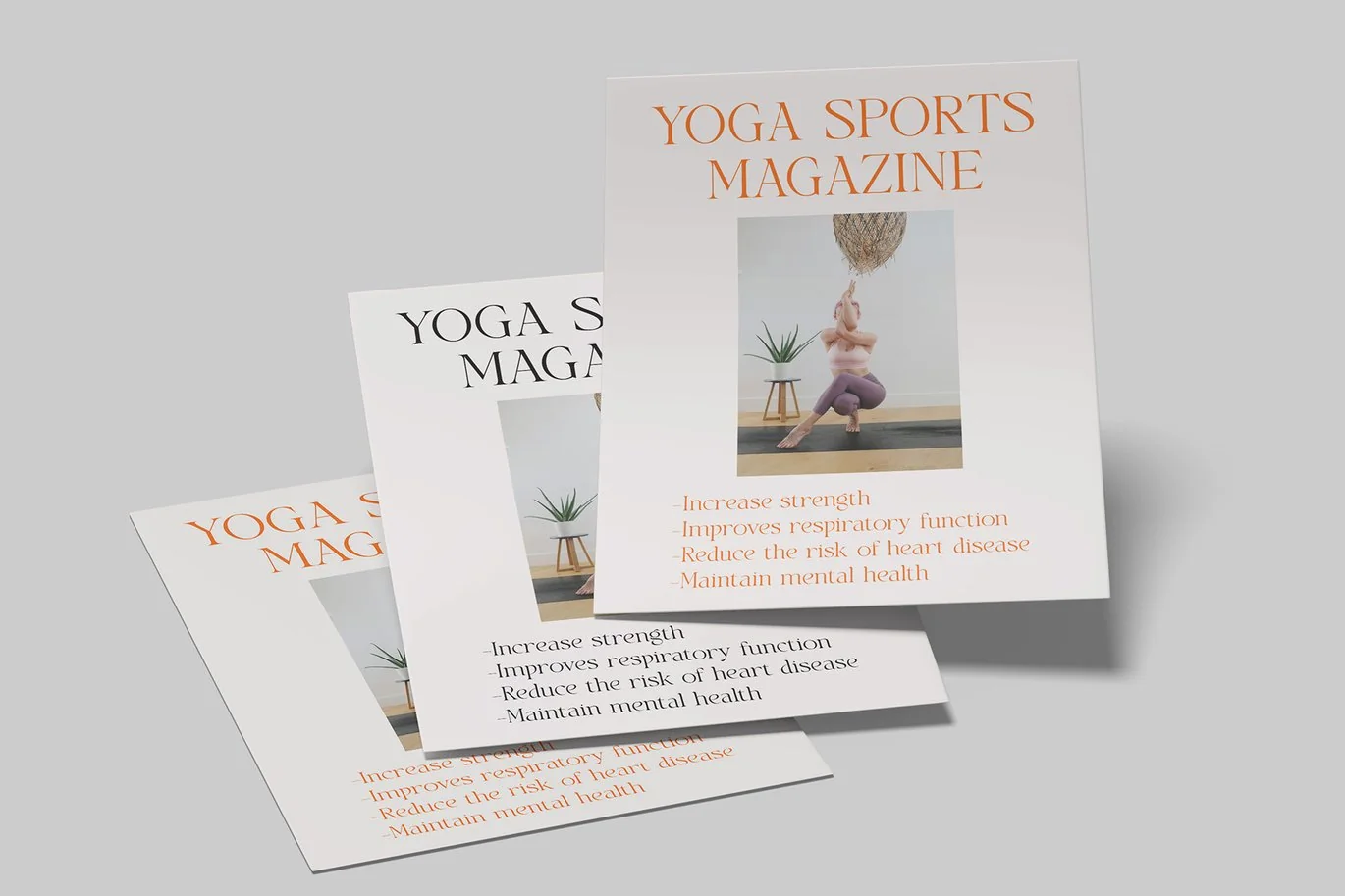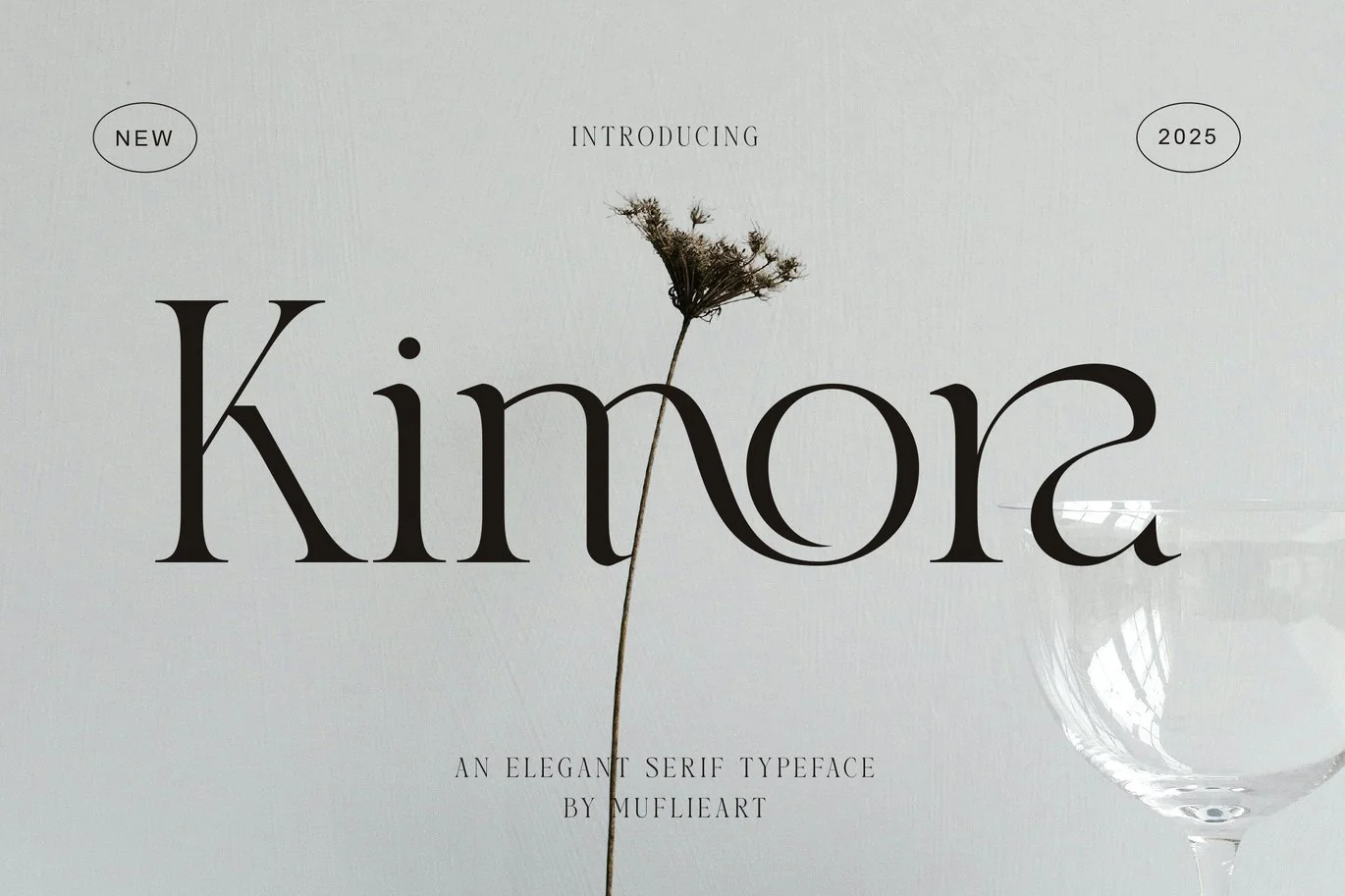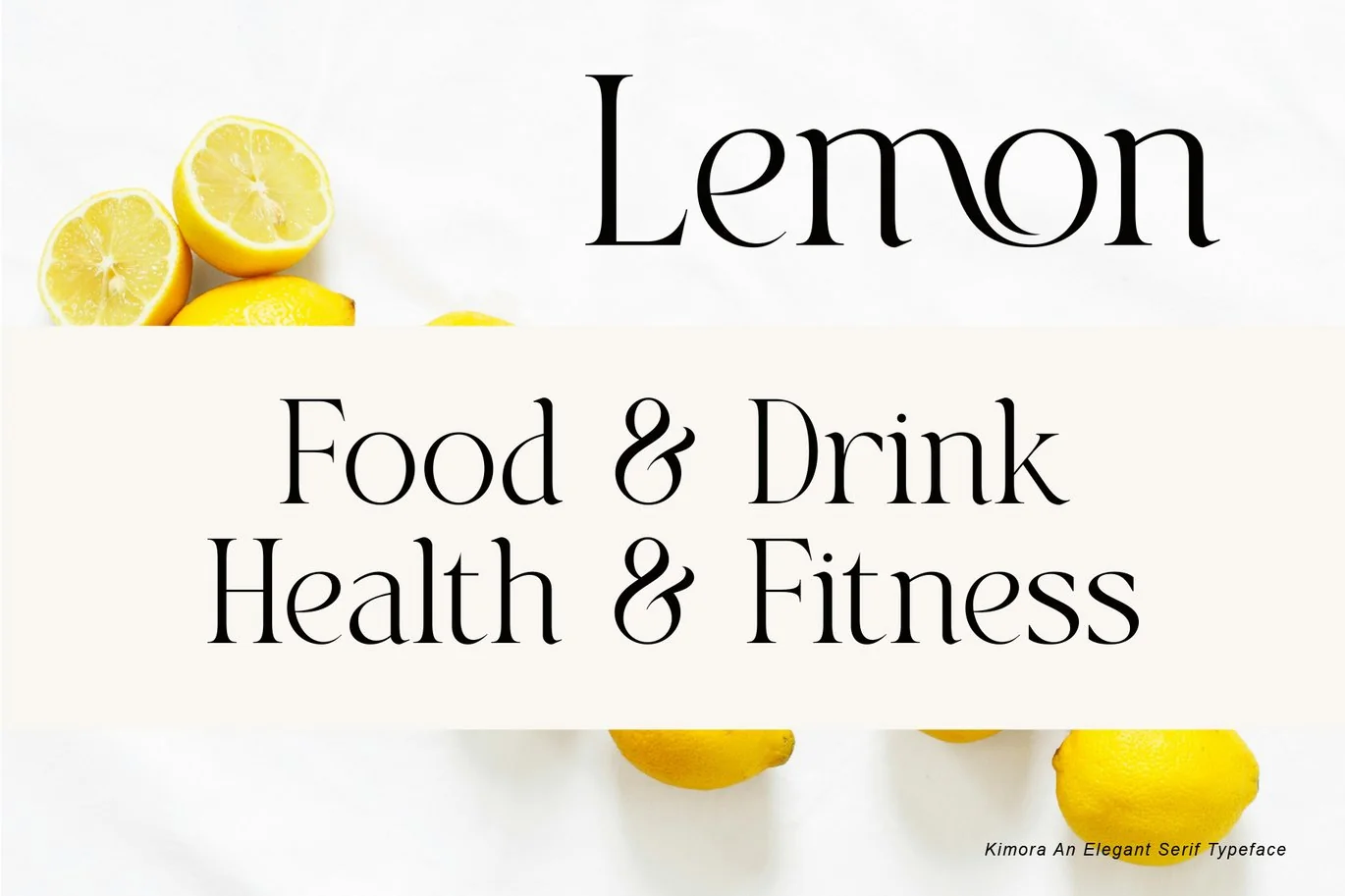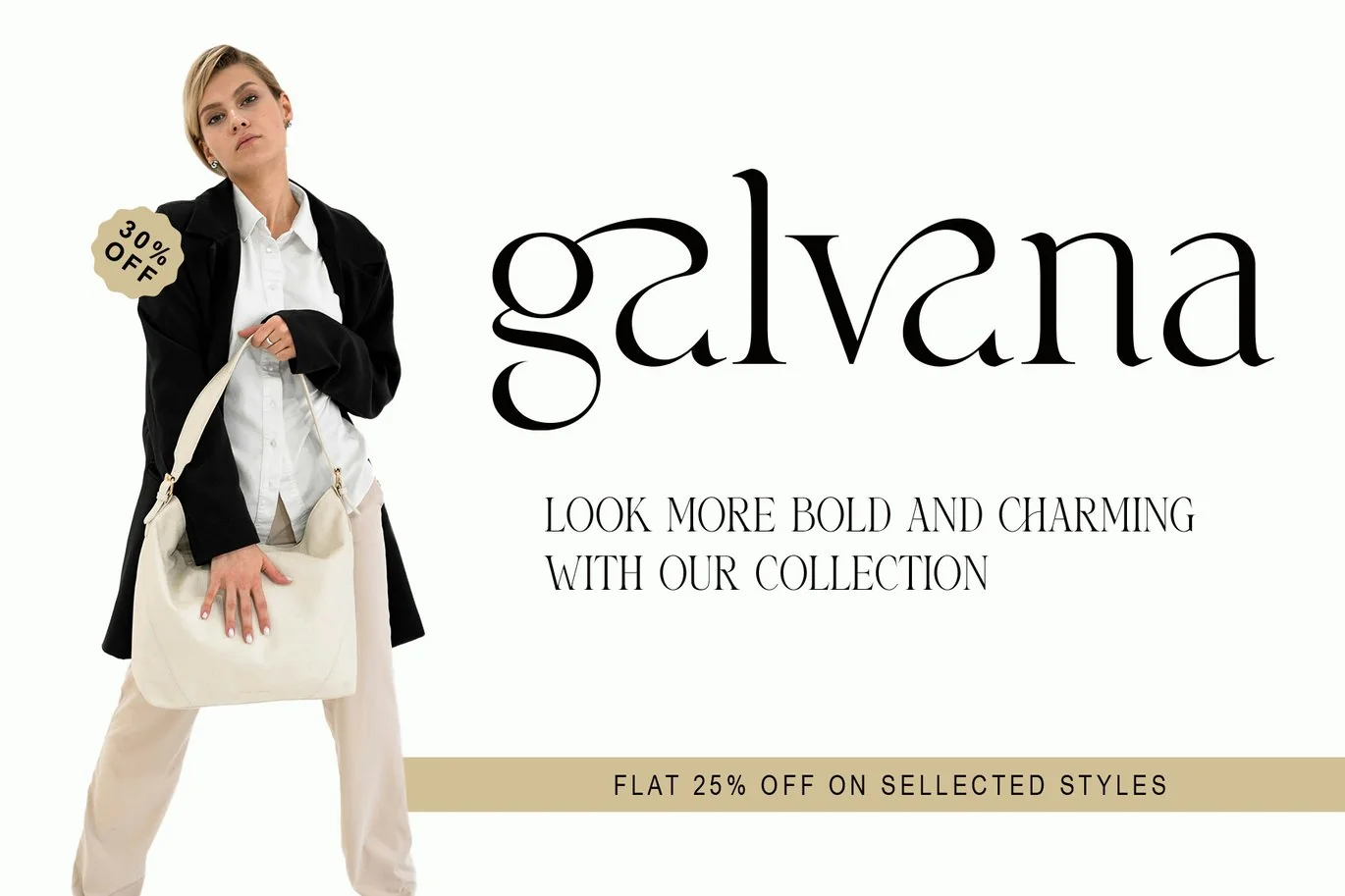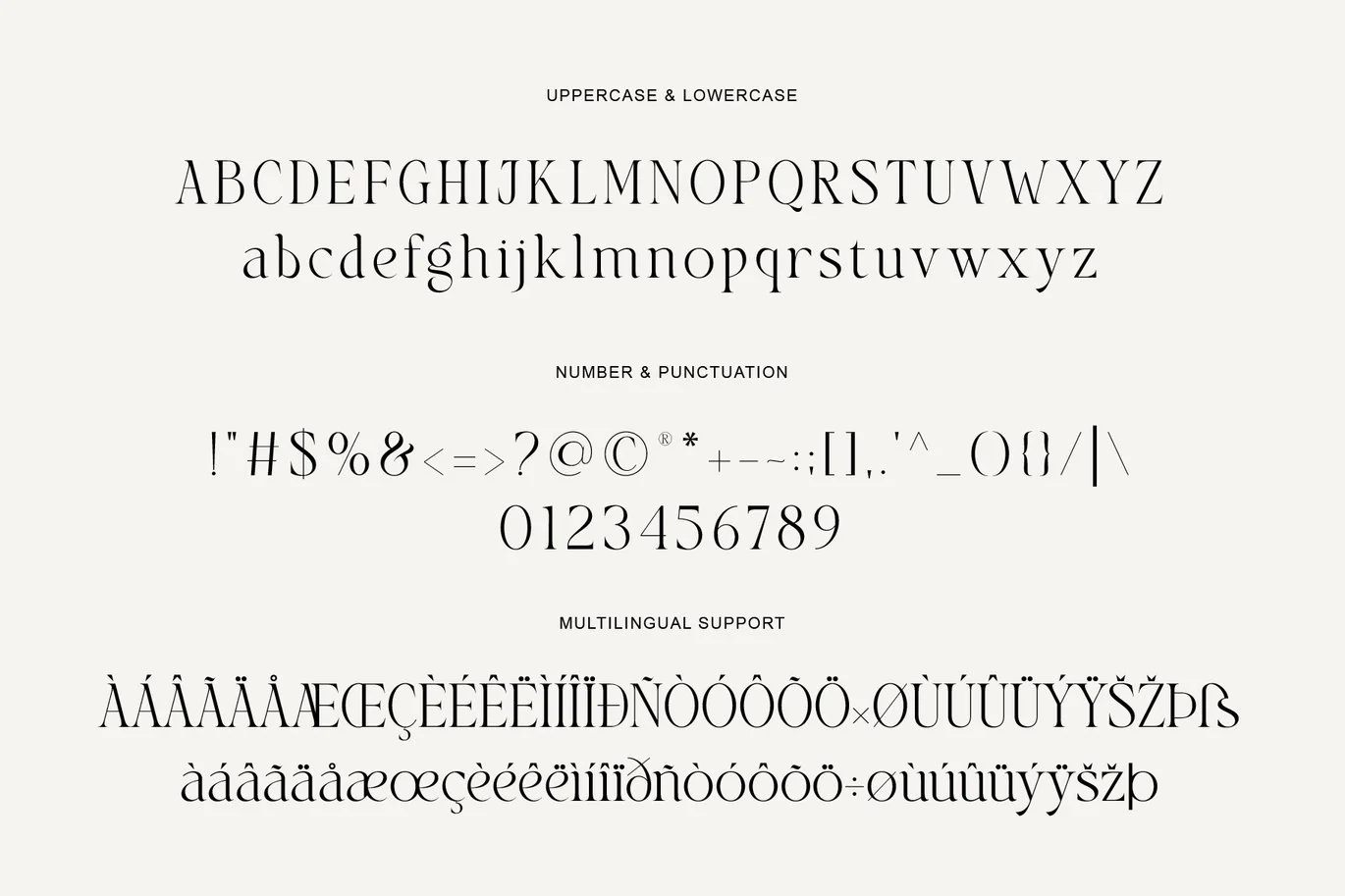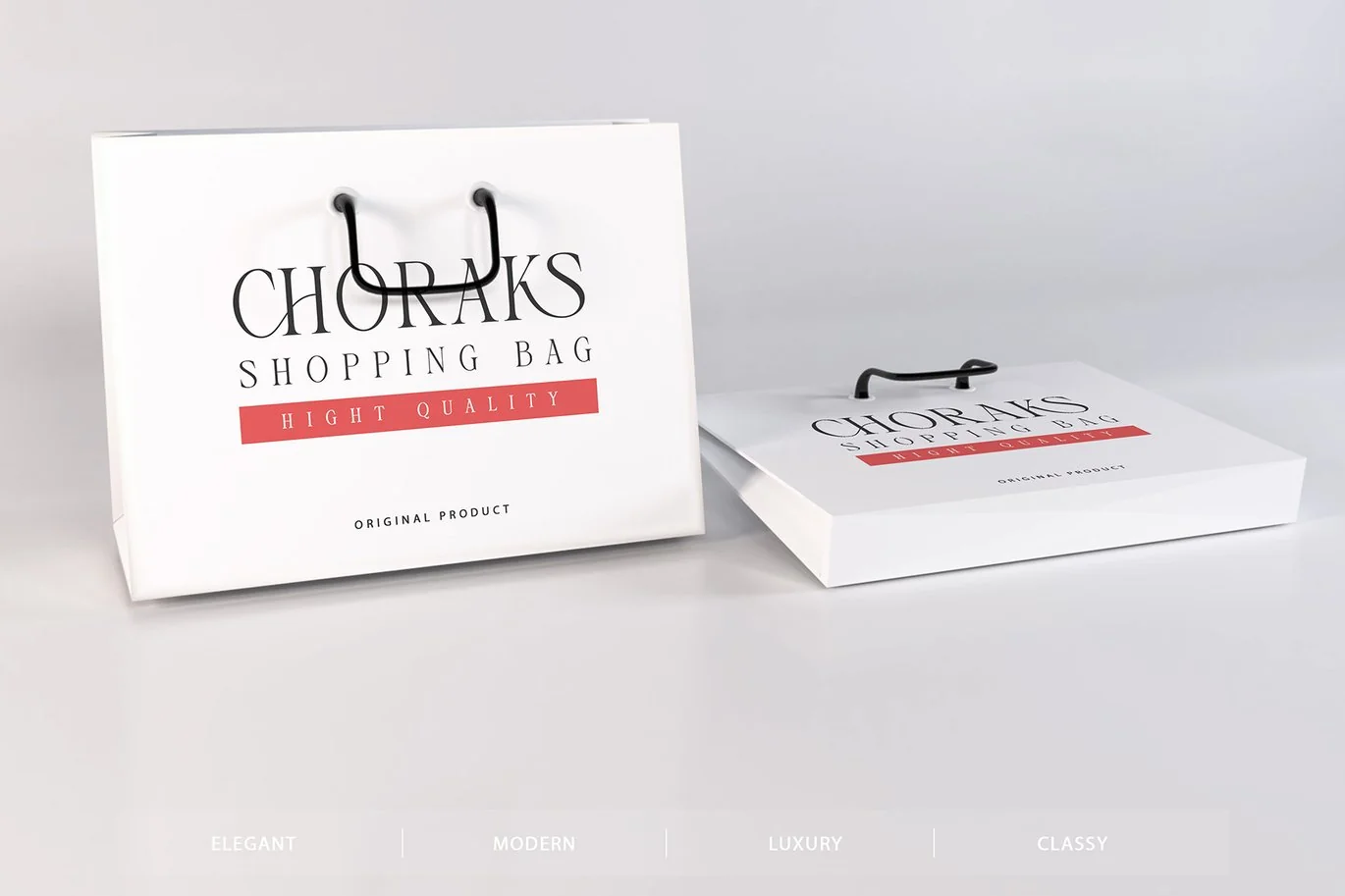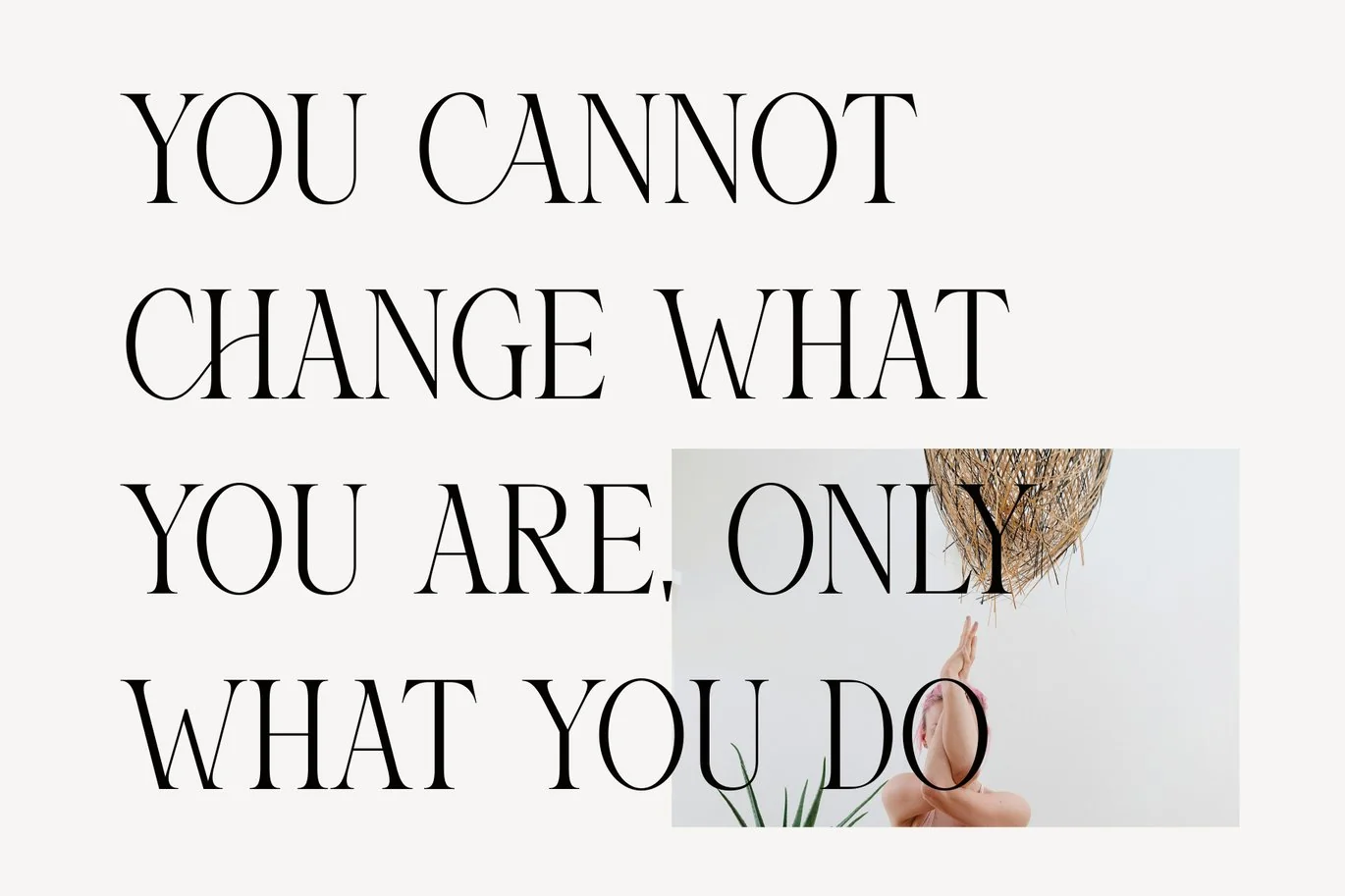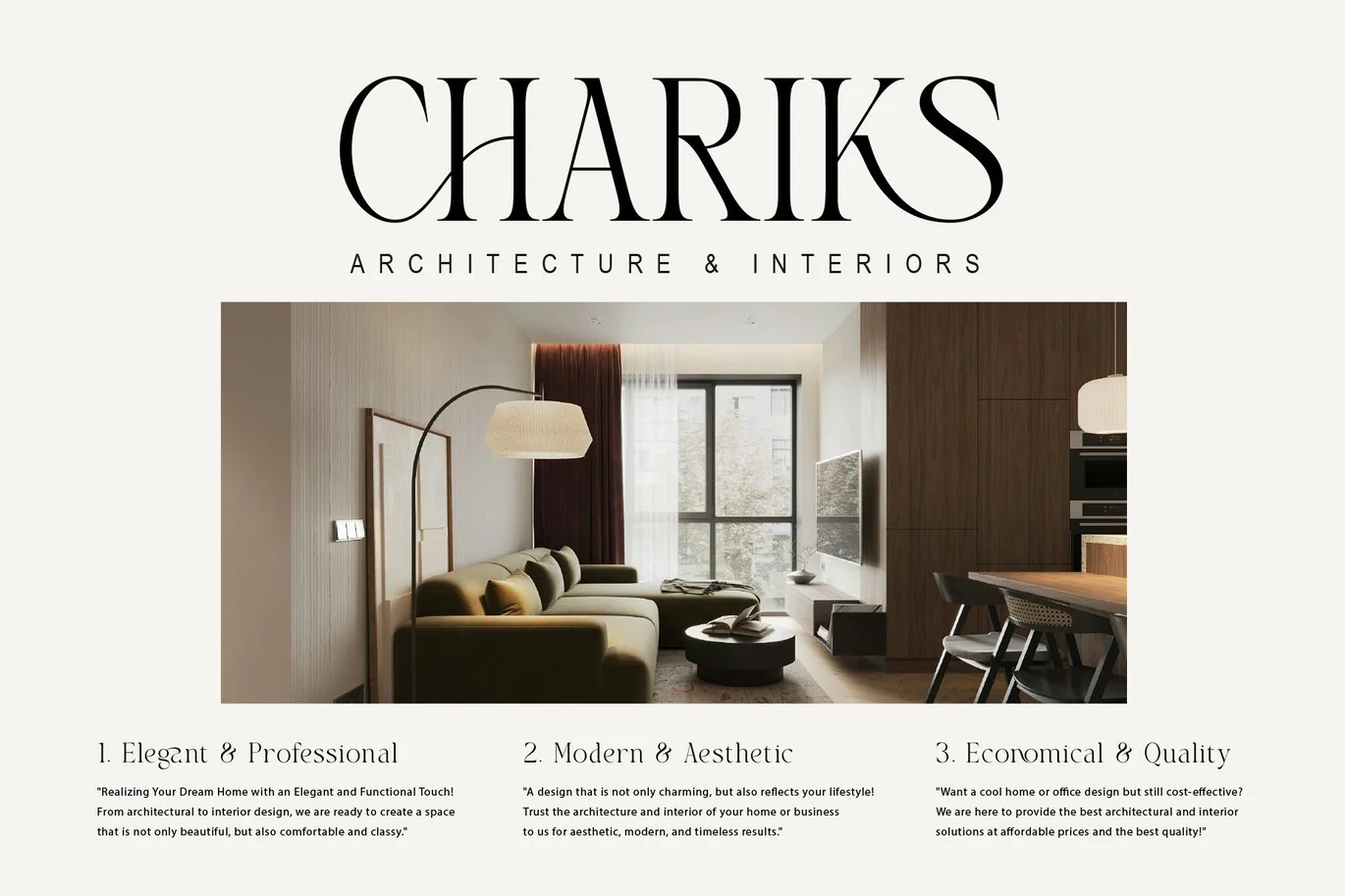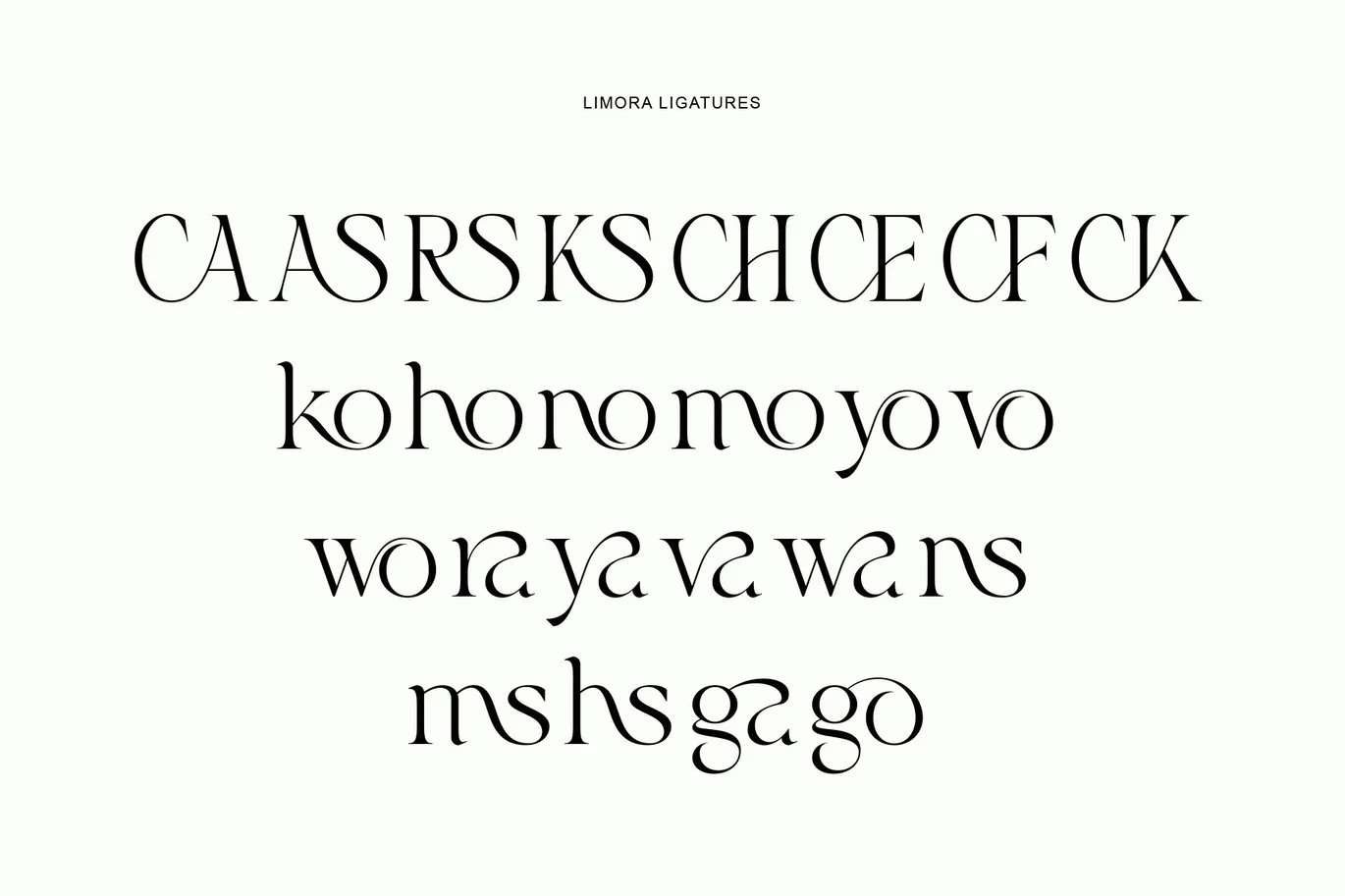
Kimora – An Elegant Serif Typeface
Introducing Kimora the elegant, beautiful, and modern Serif. With its modern and minimalist look, Kimora brings a luxurious, classy, and clean style to your projects such as websites, modern logos, brand identities, social media quotes, wedding stationery, magazines, and more!
Kimora features unique and classy capital letters A to Z and also comes with unique alternates and ligatures making Kimora a beautiful font that can be customized for various projects and jobs you want.
Kimora is perfect for: logos, brands, wedding invitations, business cards, greeting cards, posters, magazines, social media, agenda prints, and websites.